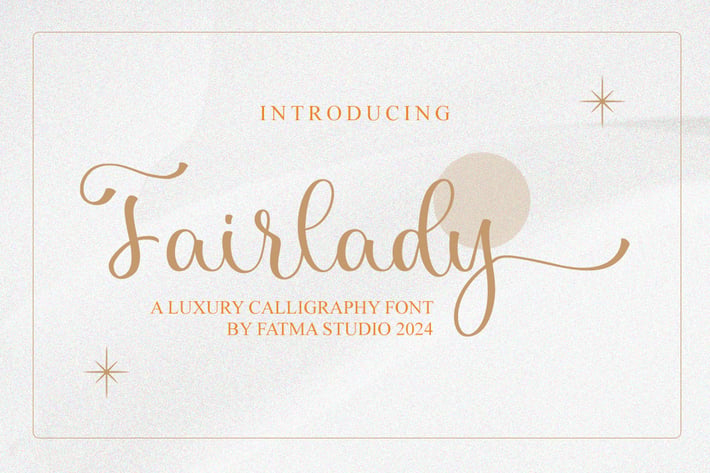
Fairlady - Elegant Script Font
Faniletta is a beautiful and refined script font. It has a classy, elegant and modern look that can be used for logos, branding, invitations, stationery, wedding designs, social media posts, and much more!
Ligatures, Swash, Alternates